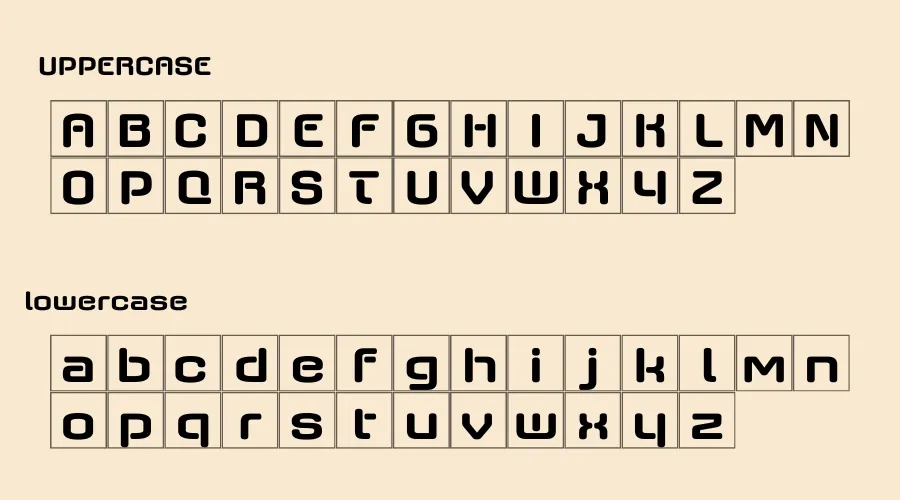
Axaxax Font
About Axaxax Font
The Axaxax Font is ultra-trendy and has a good-looking future. This font was designed by Typodermic Fonts and is under the category of Techno, a sci-fi texture family with a unique surface look appearance for viewers.
It gives you more occurrences for typesetting your text and may offer your plans a more vintage or contemporary feel. It has amazing pairing quality, so you can easily compare it with Stone Font and create stylish tasks.